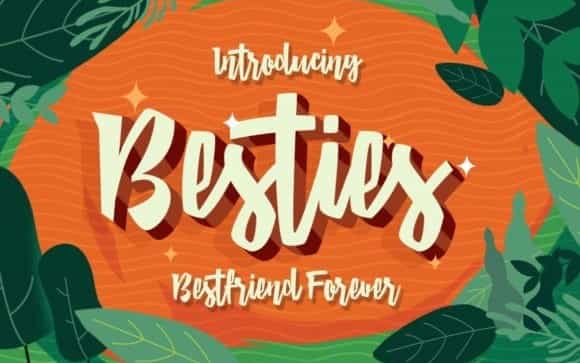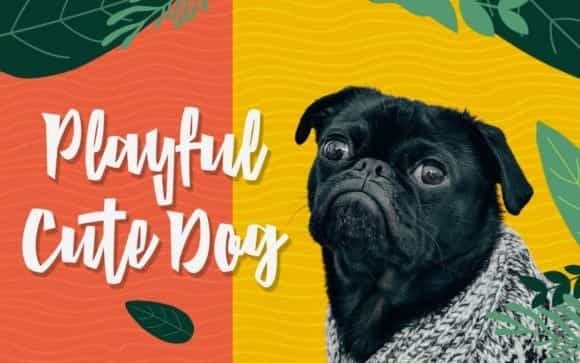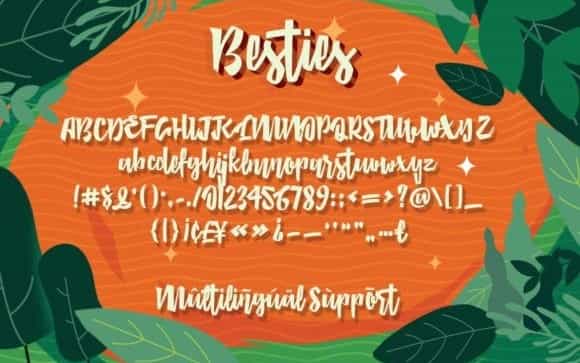
Besties is a daring handwritten font that was carefully made to be the real favorite. Its casual style is what makes it look so familiar, understandable and in the end very versatile. Besties will be the best fit for any situation, no matter if it is on a busy background or as a headline!